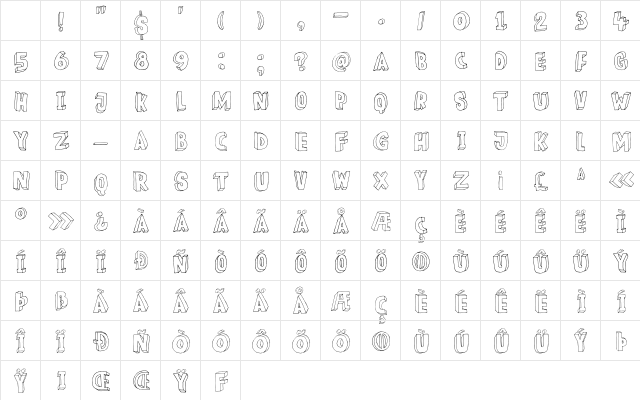
Complete DK Meshuggeneh Regular glyph index. Displaying only characters natively supported by DK Meshuggeneh Regular font.
DK Meshuggeneh is a composed and adaptable typeface that performs quietly and consistently across a wide range of design contexts.